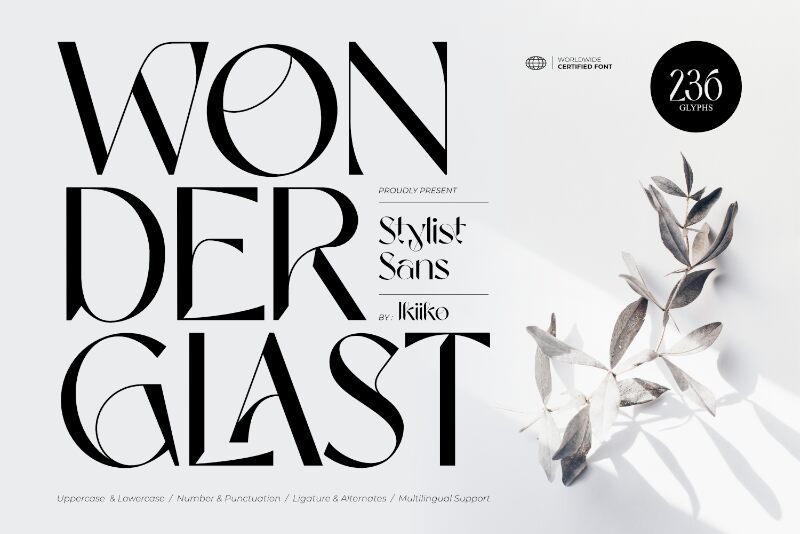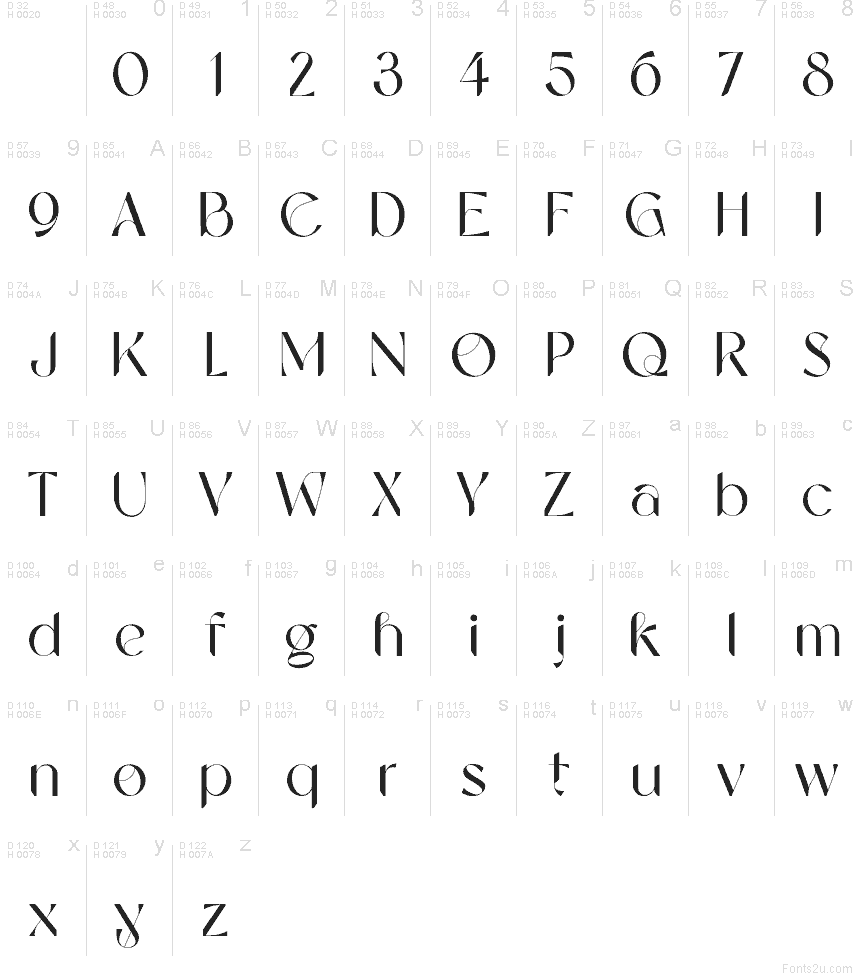
Wonderglast font by Andhika Pradana of Ikiiko type is a free modern serif font, with a typeface voice that feels both regal and slightly playful. Its tall, polished shapes and gently swelling curves create a smooth rhythm, while the crisp serifs keep everything looking refined and intentional.
Using Wonderglast, you’ll get elegant results on magazine mastheads, beauty branding, boutique packaging, book covers, event invitations, café menus, and editorial pull quotes. This free font shines when you let it breathe-try a touch of extra tracking and generous margins. Pair it with a clean geometric sans for captions and small text so the serif gets the spotlight.